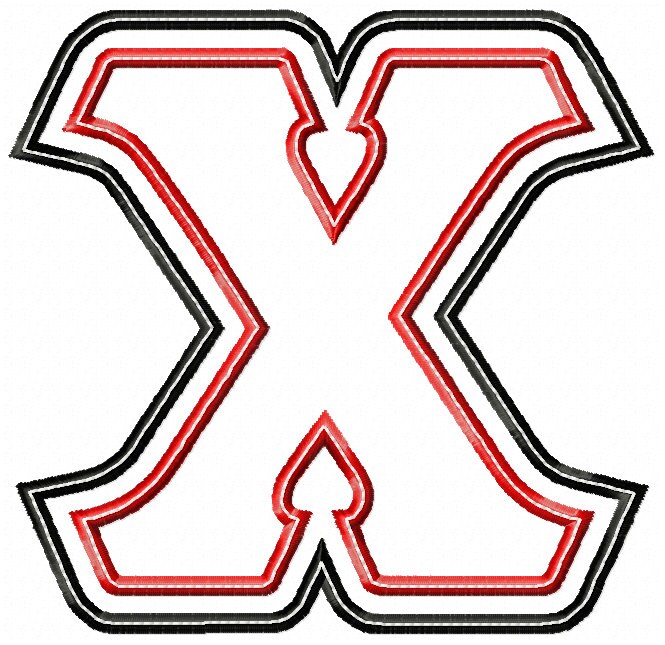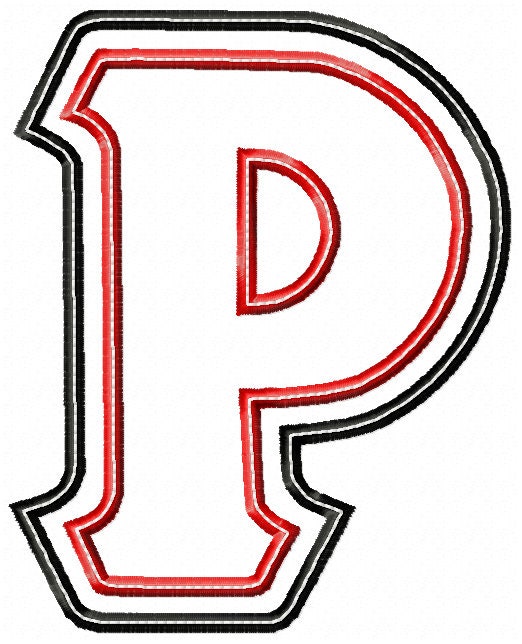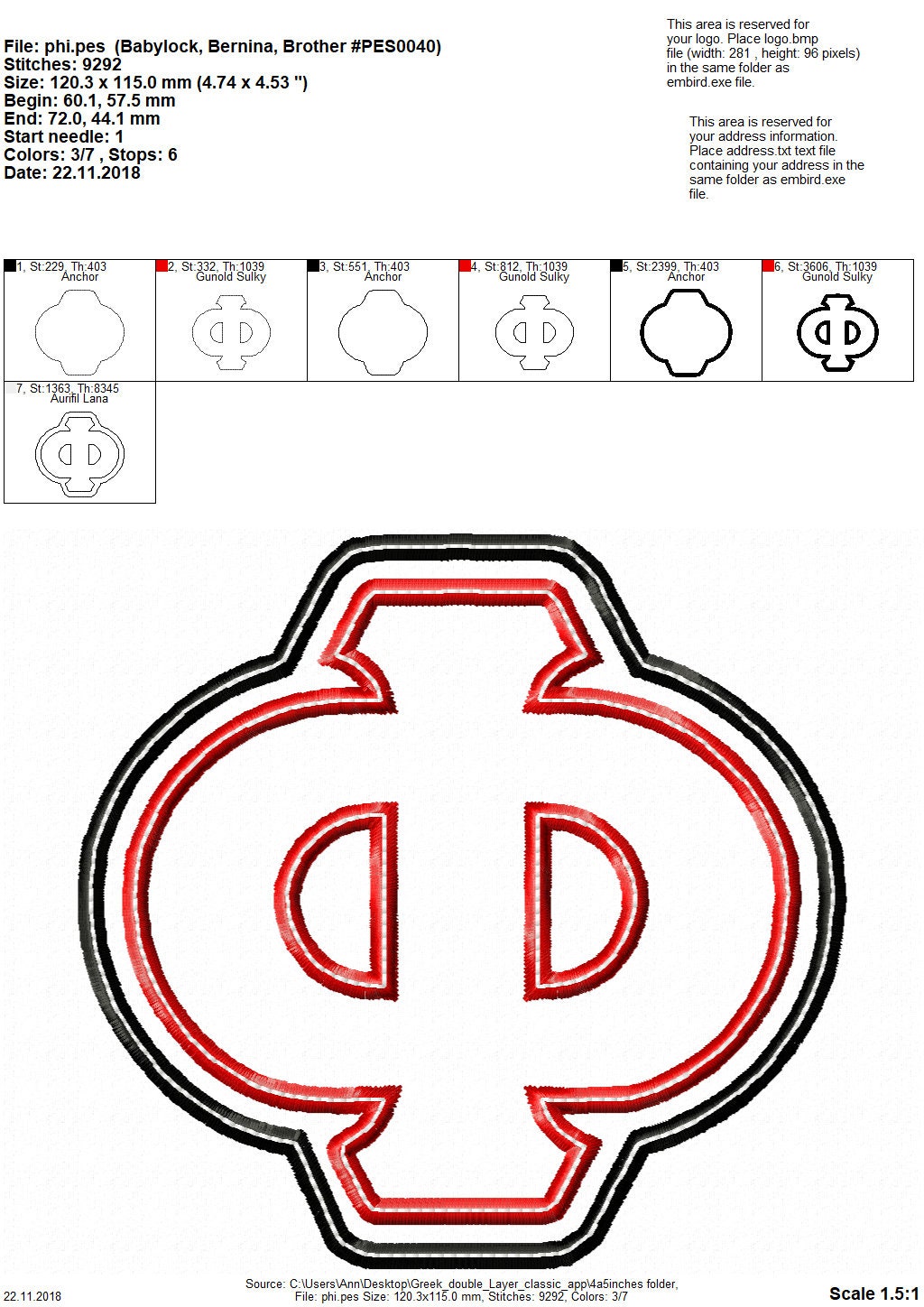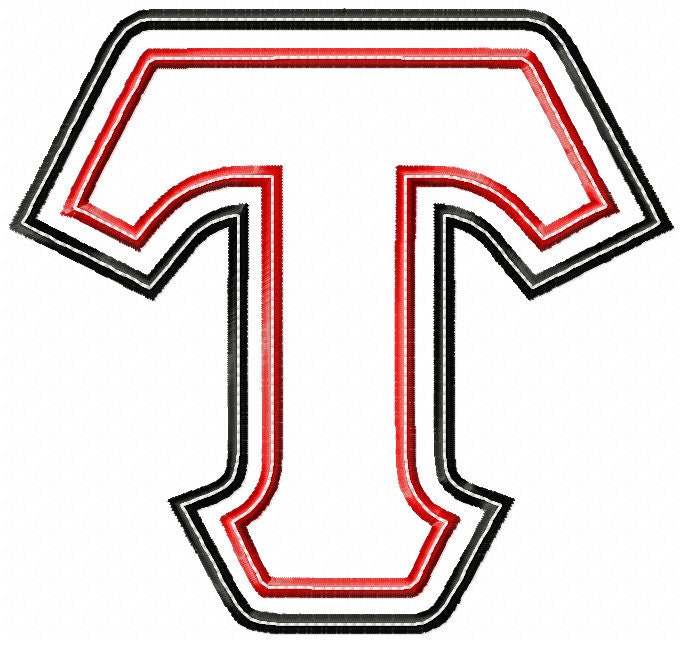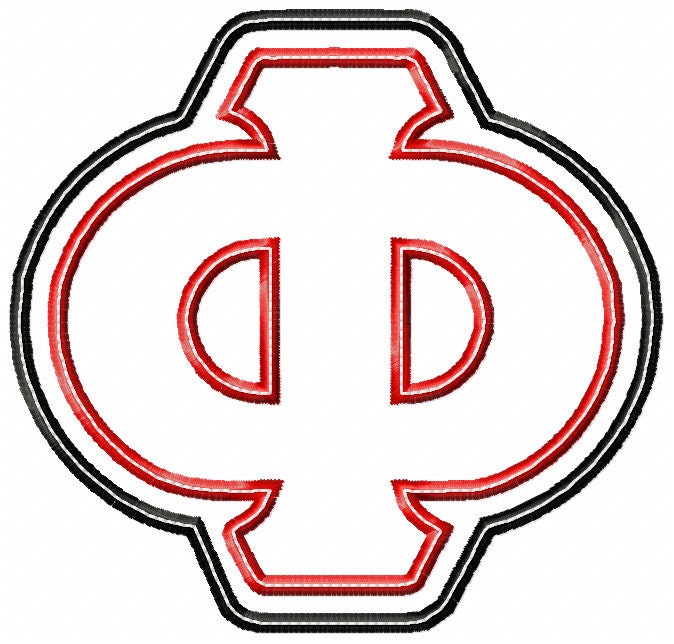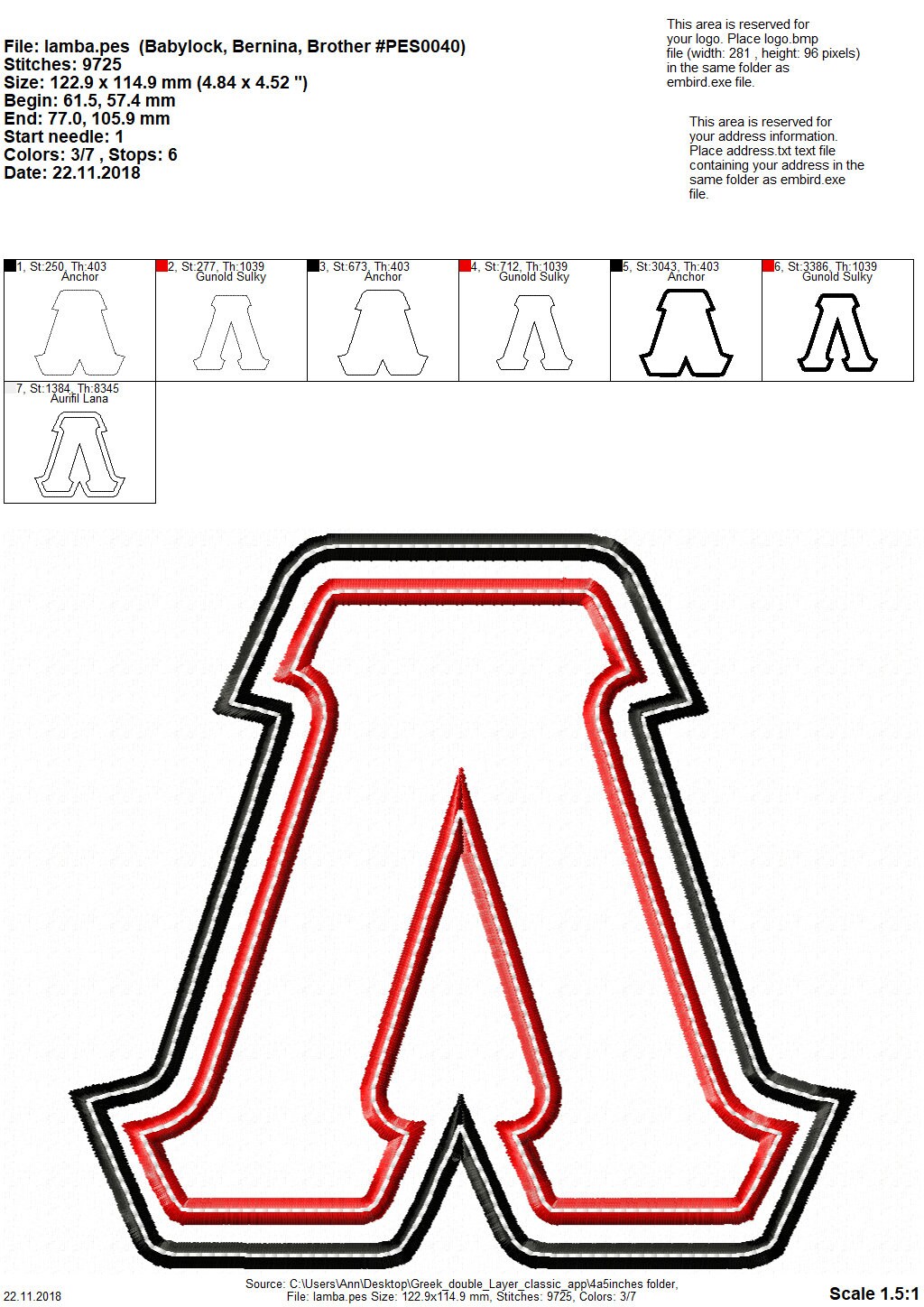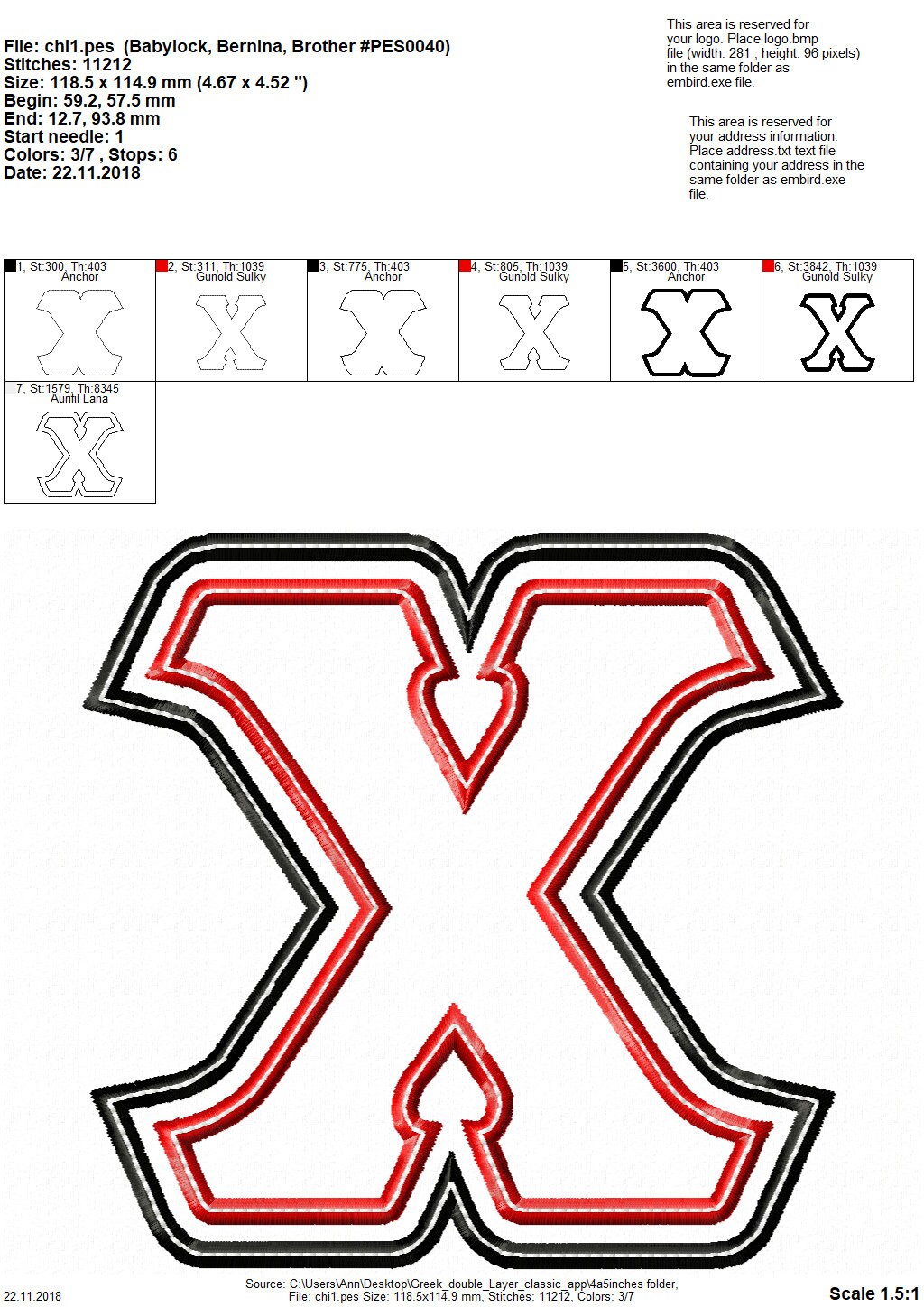
CLASSIC GREEK FONT satin 2 layers applique, 2 colors Greek alphabet abc, theta alpha omega kappa, font machine embroidery designs
Letters are 2 step applique with standard classic applique satin stitch finish